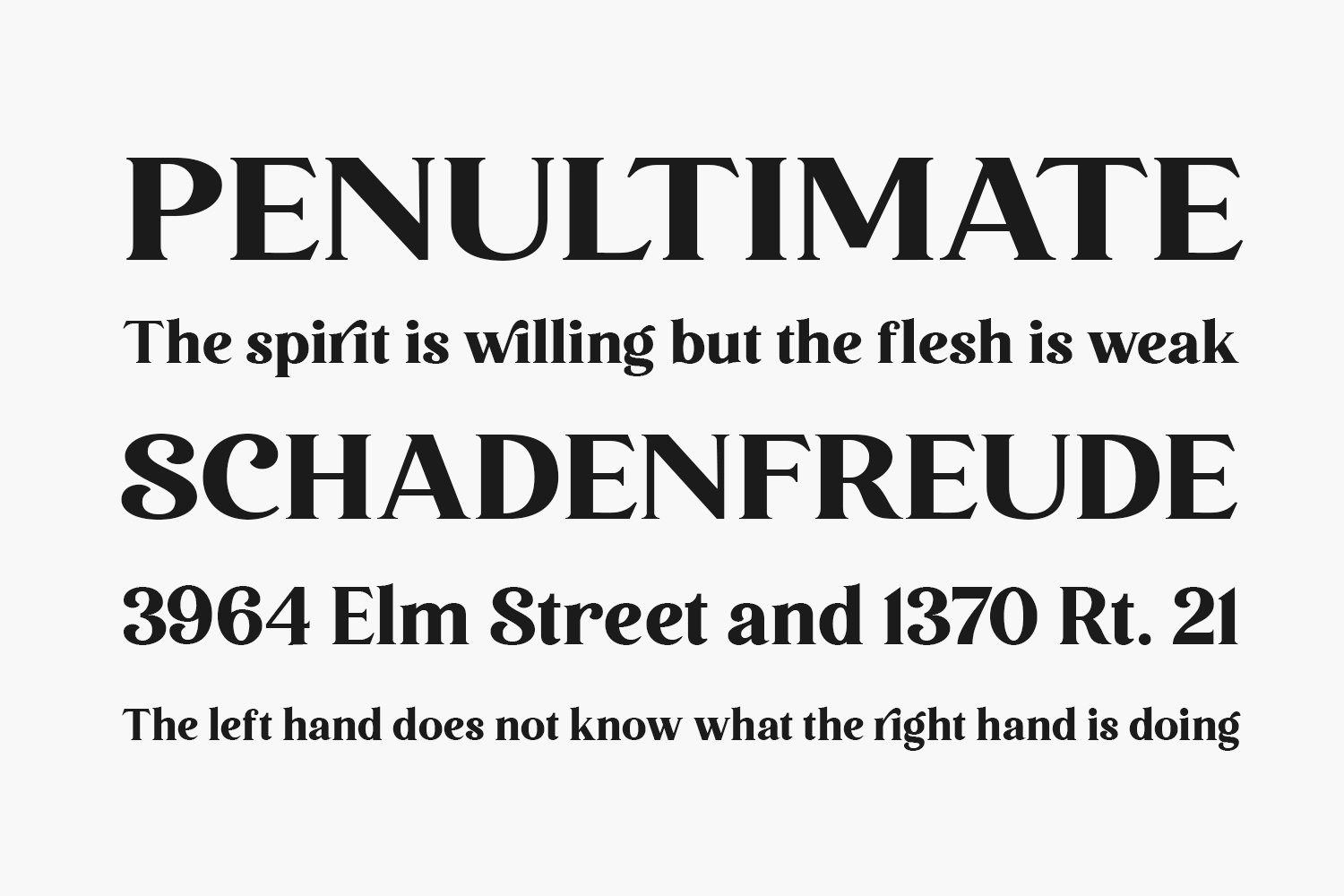
Ravise Free Font is a modern and strong lettered serif font. It is perfectly suited for stationery, logo, typography quotes, magazine or book cover, website header, clothing, branding, packaging design, and more.
Designed by Suby Studio